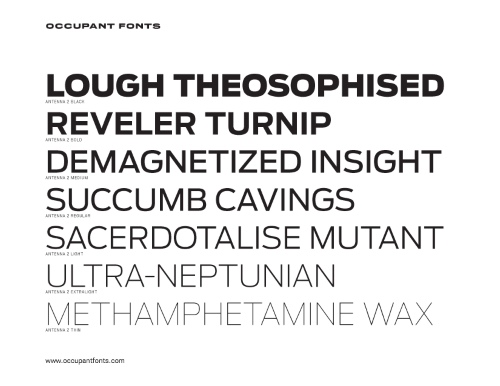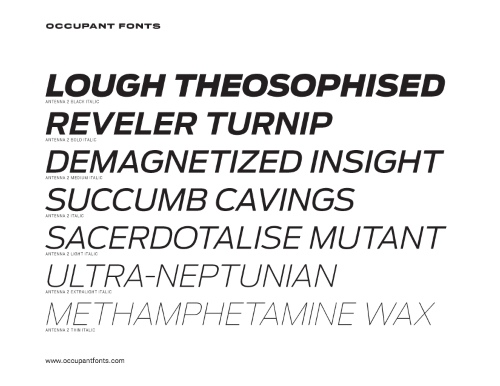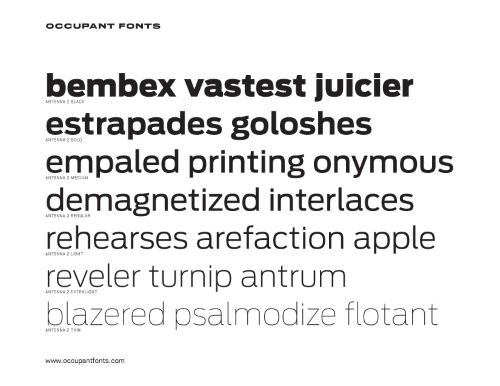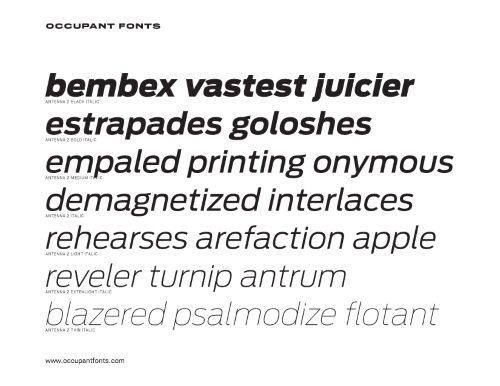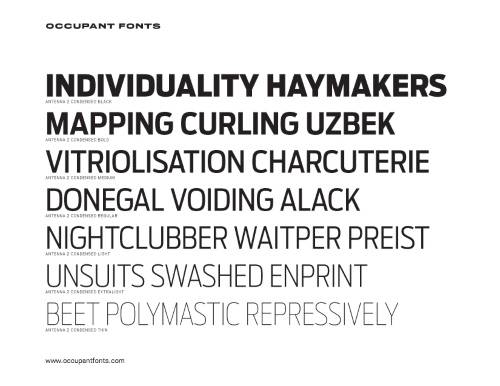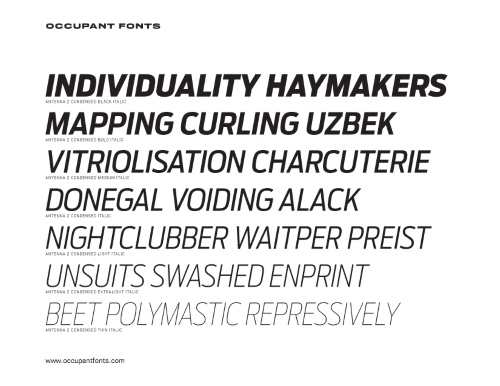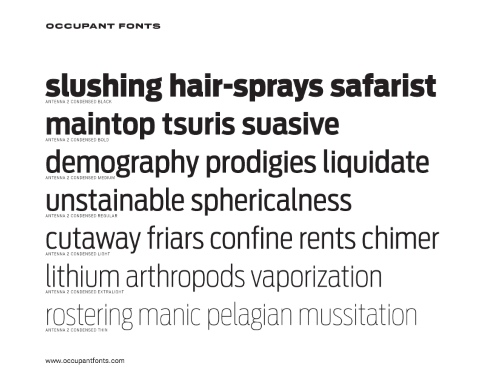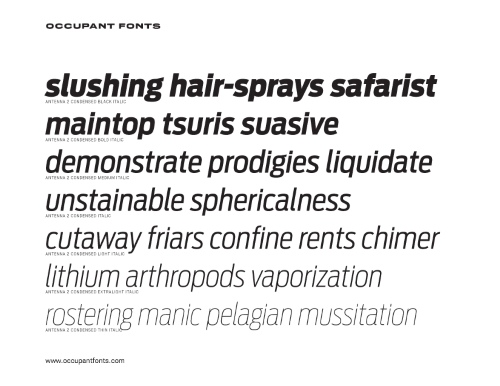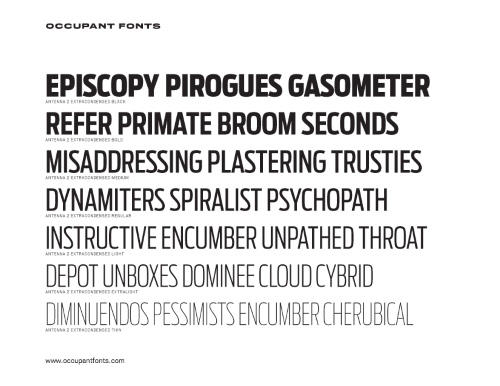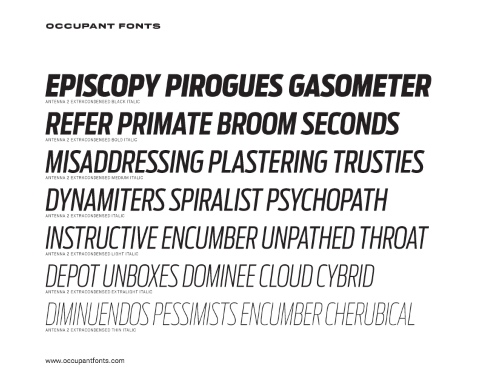
Antenna 2 - 56 Styles Static
& 2 Variable Fonts NEW!
- Cyrus Highsmith’s Antenna 2 is a versatile industrial sans serif that projects confidence and deliberation. He slowed down his usual fast curves and shifted the emphasis to pattern of white shapes formed inside and between characters. With seven weights in four widths and matching italics, Antenna 2 is ready for almost anything. Originally released in 2006, the 2025 release, led by Victoria Rushton, includes more language support as well as variable fonts.